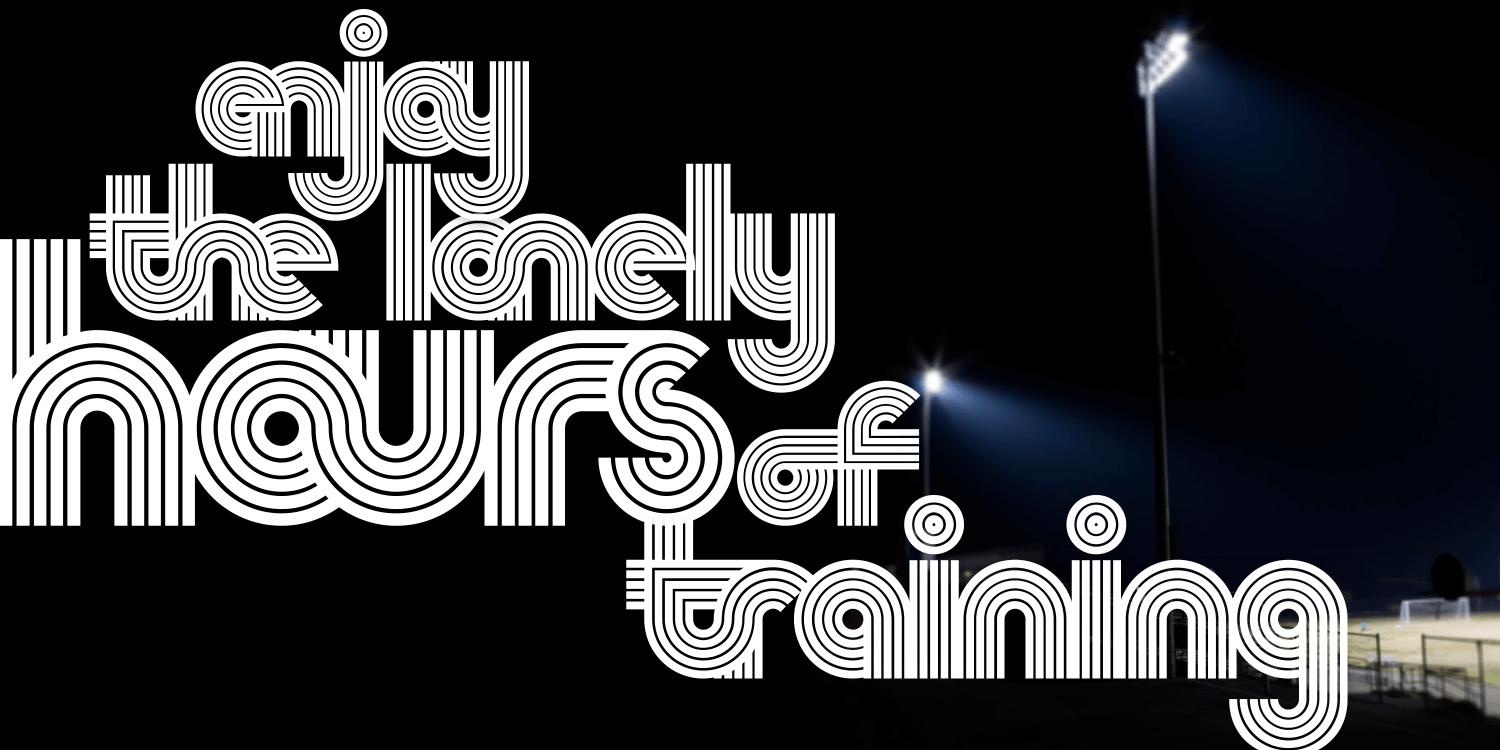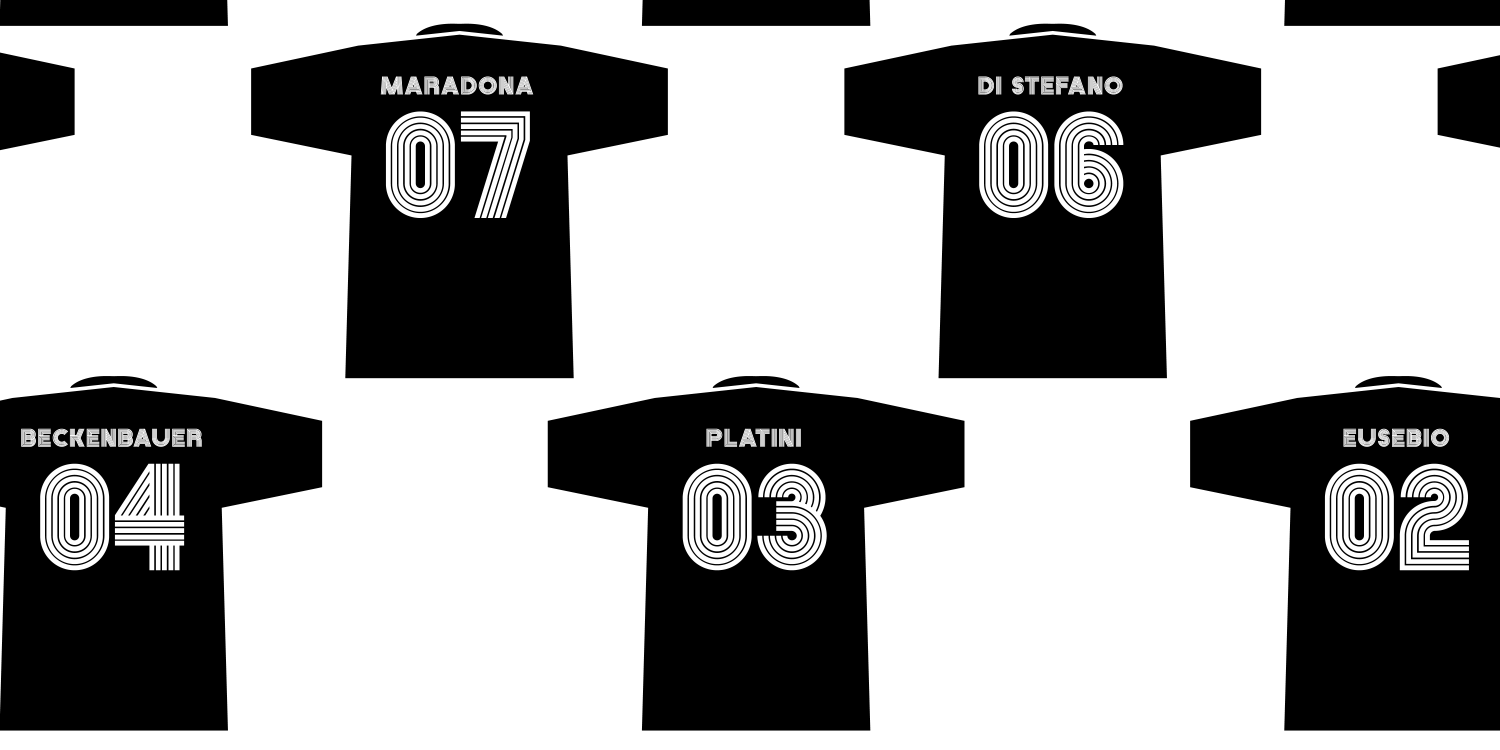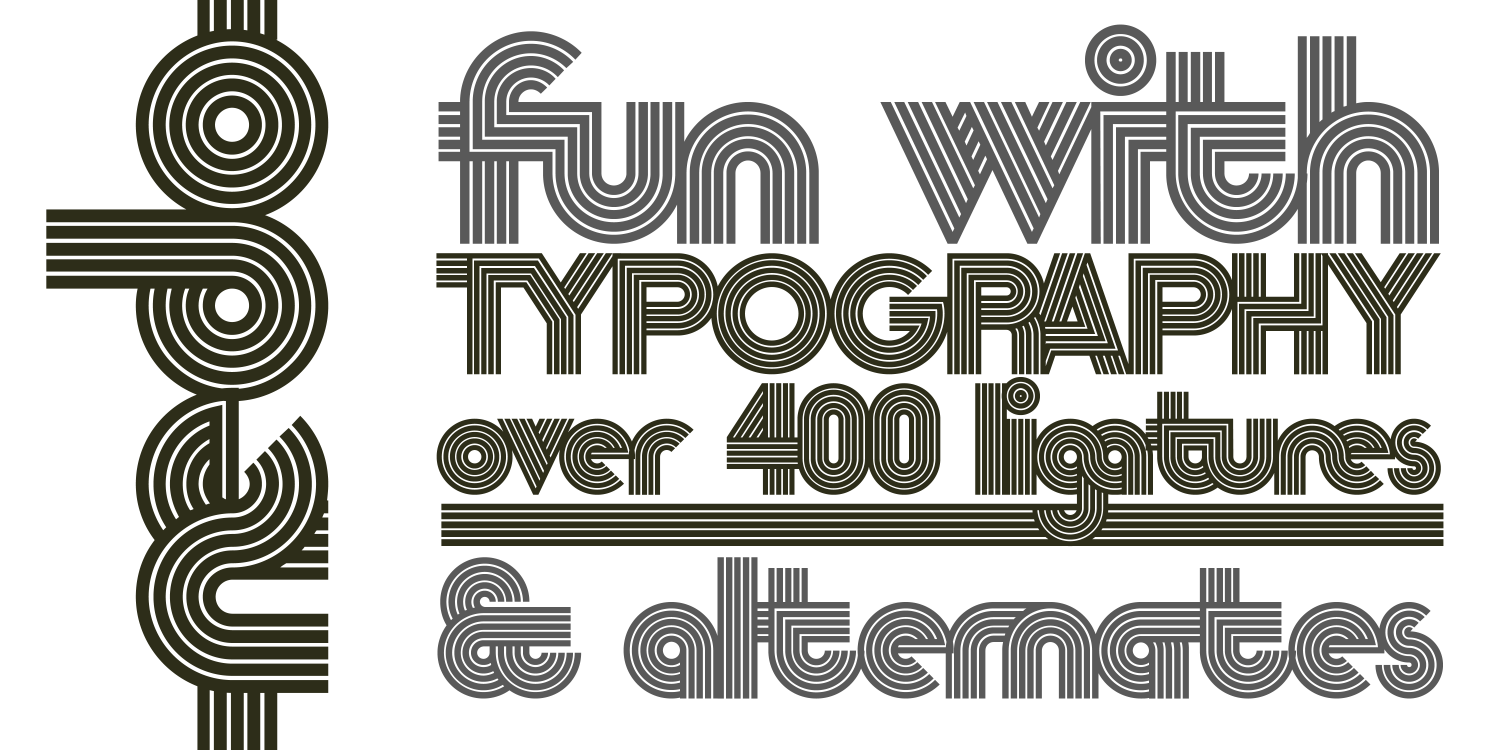
About Nedo
Nedo is a single weight, multilinear typeface inspired by the work of Venezuelan designer, Nedo Mion Ferrario. Based on a five line, geometric stroke, this typeface features a large set of ligatures to create striking titles and headlines.